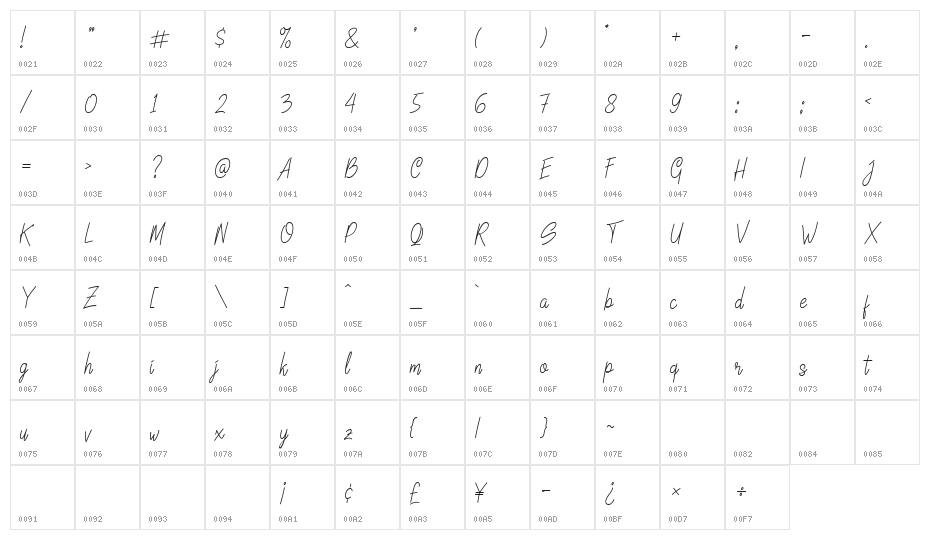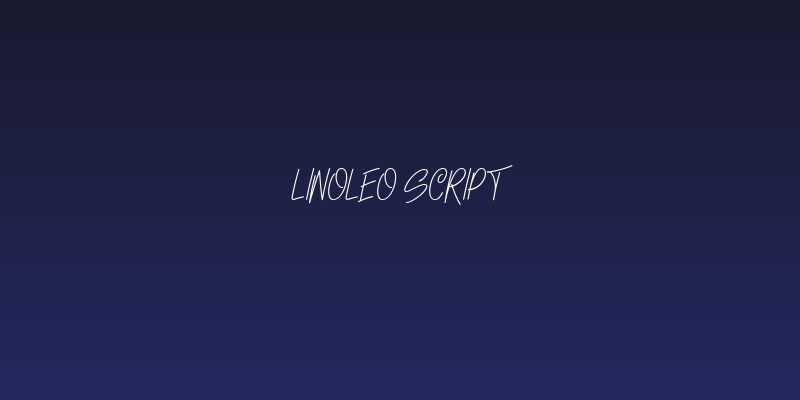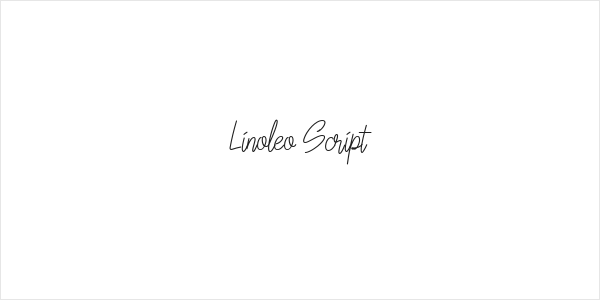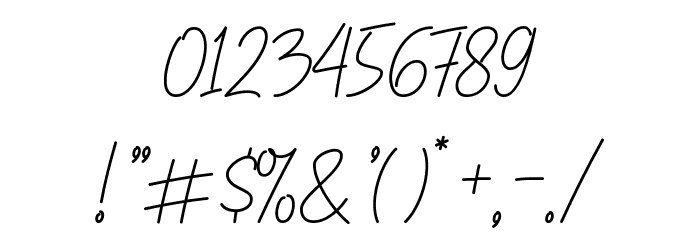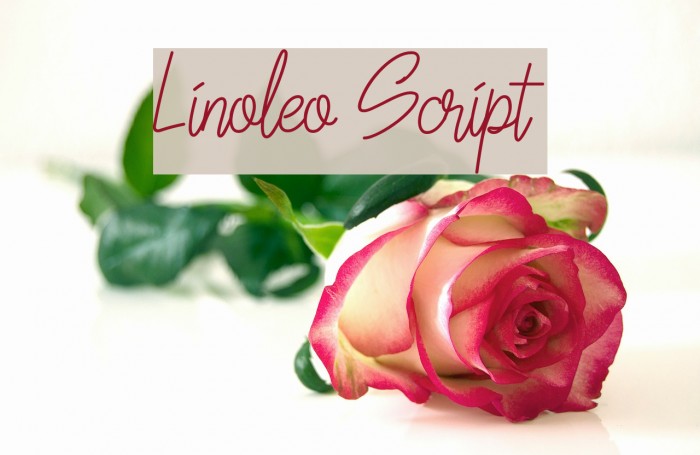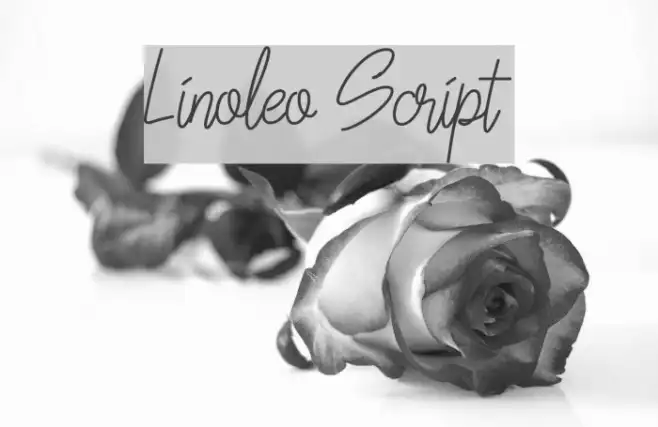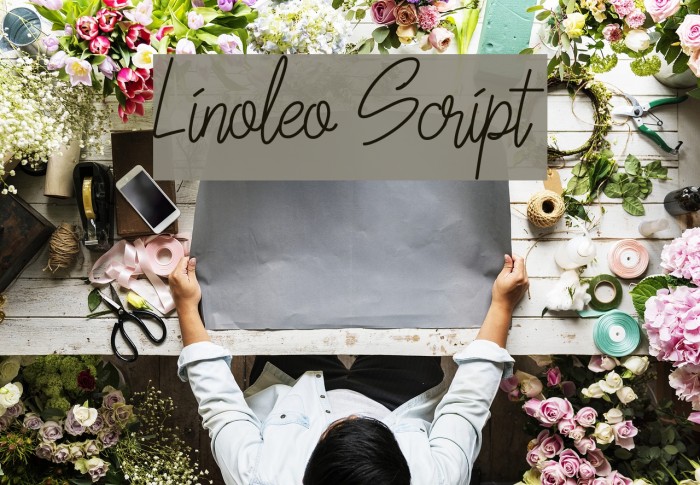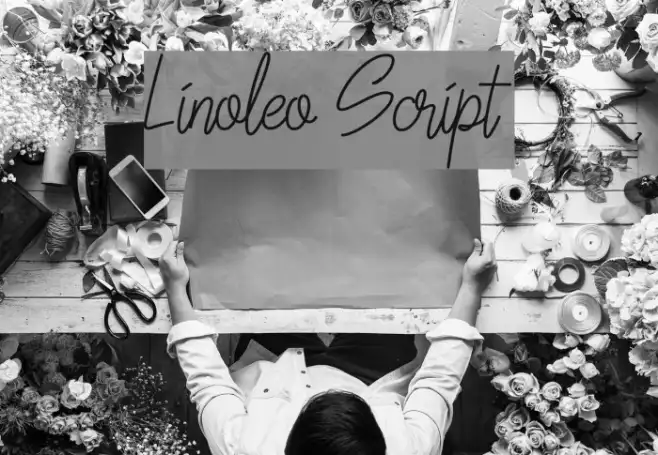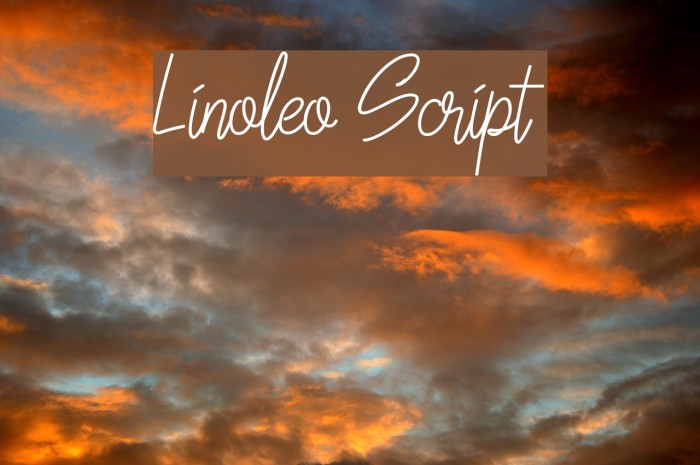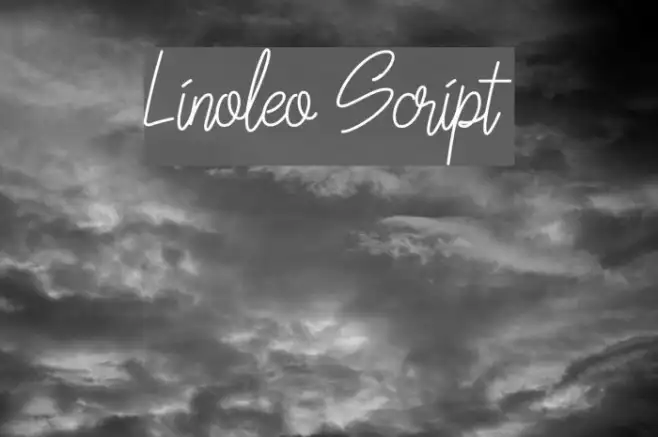
Linoleo Script Font
Linoleo Script Description
This font features a flowing, cursive style that mimics the elegance of handwritten script. The letters are connected in a fluid manner, giving it a natural and organic appearance. The strokes are thin and consistent, providing a delicate and refined look. The uppercase letters are slightly taller than the lowercase, maintaining a harmonious balance. Numbers and special characters are designed to match the overall script style, ensuring a cohesive look across all characters. This font exudes a sense of sophistication and grace, making it ideal for projects that require a personal touch.
| Overall Style | Elegant |
| Use Case | Logos, Invitations, Personal Branding |
| Proposed Projects | Ideal for wedding invitations, greeting cards, personal branding, and elegant logos. |